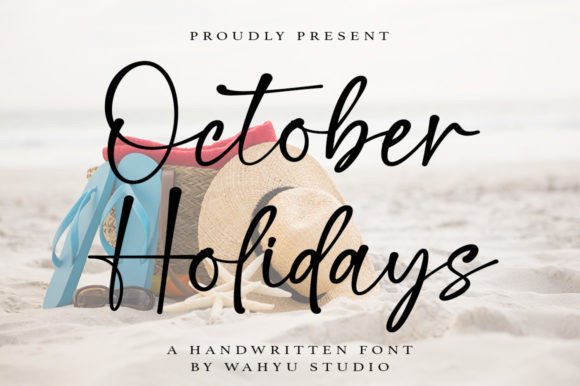
Prepare yourself to be swept off your feet by the October Holidays font, a captivating script font that radiates refinement and sophistication. Step into a world of visual allure as this font dances across your designs, leaving a trail of elegance in its wake.
Crafted with the utmost care and attention to detail, October Holidays exudes a charm that is both timeless and utterly captivating. Its graceful curves and delicate strokes evoke a sense of romance and femininity, making it the perfect choice for those seeking to add a touch of sophistication to their projects.
Lose yourself in the beauty of October Holidays as it transforms your words into works of art. Let its exquisite ligatures and alternates weave a tapestry of visual delight, adding depth and dimension to your designs. Whether you're a photographer seeking to elevate your logo, a designer in search of inspiration, or simply someone who appreciates the finer things in life, October Holidays is your font of choice.
Unleash the boundless potential of October Holidays and watch as it breathes life into your creative endeavors. let its inherent grace and allure captivate your audience, leaving them with a lasting impression that lingers long after they've encountered your designs.